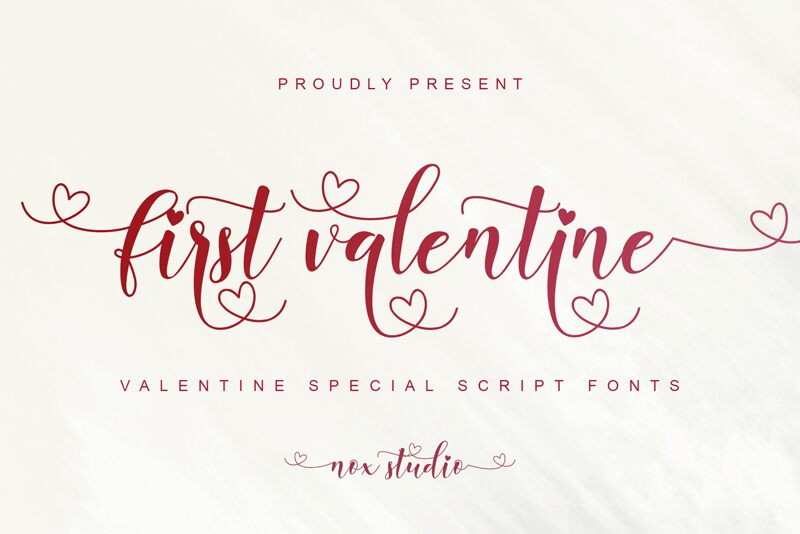
Introducing First Valentine, a light calligraphy font designed by Nox Studio 2021. Perfect for any project related to love and romance, this beautiful font style is sure to make your valentine projects stand out! From greeting cards to wedding invitations, let First Valentine be your go-to choice for all your romantic endeavors.